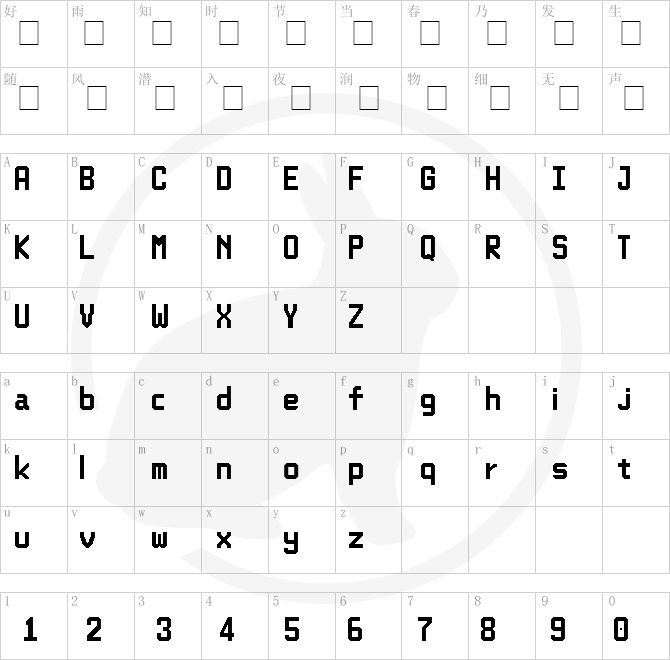
- Font Name:1st Sortie
1st-Sortie.ttf is a very beautiful artistic font, 1st-Sortie.ttf is widely used in the design and printing of various books and pictures,1st-Sortie.ttf has a strong visual impact,1st-Sortie.ttf is a commonly used font in newspapers, magazines and books, and is used in posters, e-commerce Poster design, store design, logo design, font design and other fields.1st-Sortie.